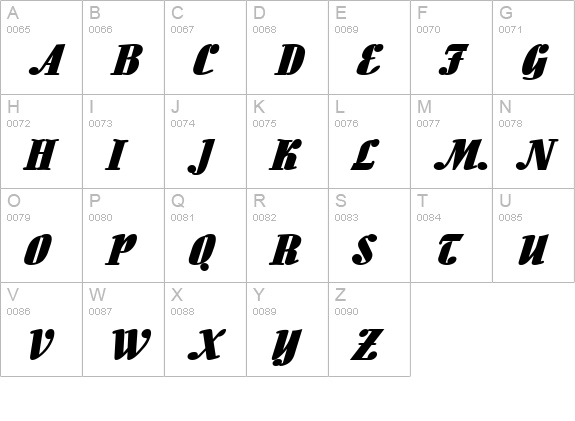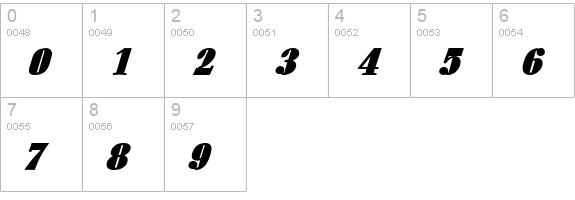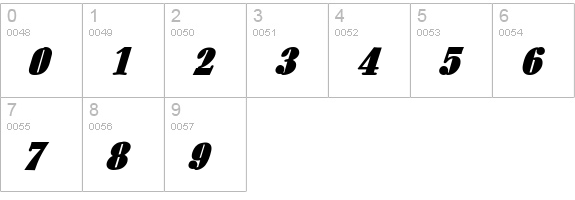
Aloe Extended BoldItalic Font Details
Aloe Extended BoldItalic is a distinctive, extended-width variant in the Aloe typeface family \xE2\x80\x94 well suited to design and typography projects.
Aloe Extended BoldItalic font is a modern and sophisticated typeface that exudes elegance and professionalism. Its sleek design and bold italic style make it perfect for creating eye-catching designs and branding materials. This font is versatile and can be used for a wide range of projects, from logos and headlines to packaging and advertisements. What sets Aloe Extended BoldItalic font apart is its unique blend of sharp edges and gentle curves, creating a harmonious balance that catches the eye. The bold weight adds a touch of confidence and authority to any text, while the italic style adds a dynamic and stylish flair. Best of all, Aloe Extended BoldItalic font is completely free to download at FontsMarket.com, making it accessible to designers and creatives looking to elevate their projects without breaking the bank. Don't miss out on this amazing opportunity to enhance your designs with this stunning and versatile font!